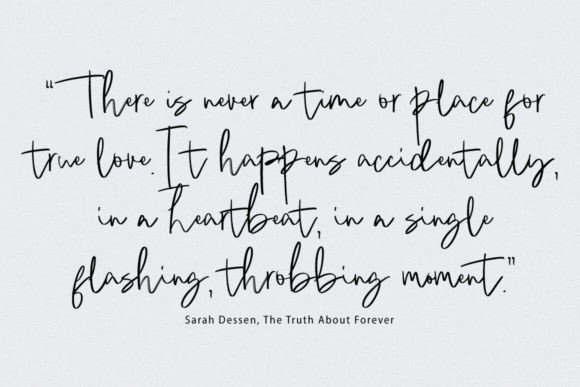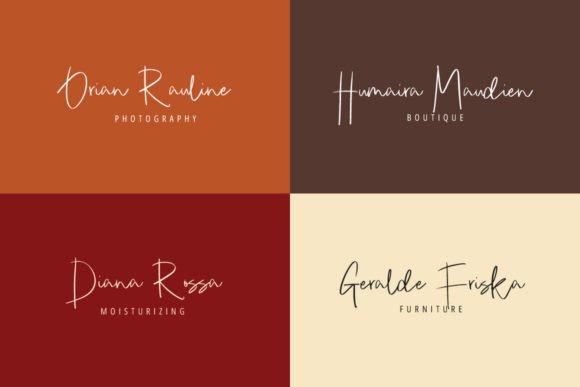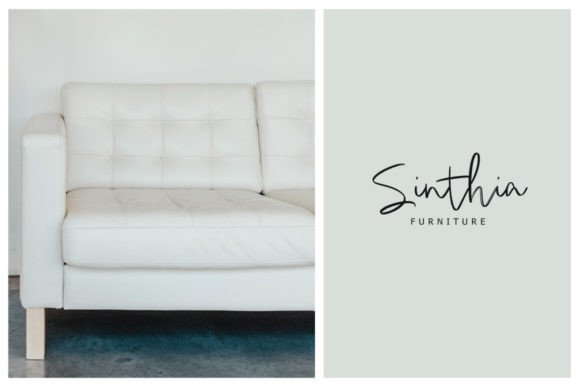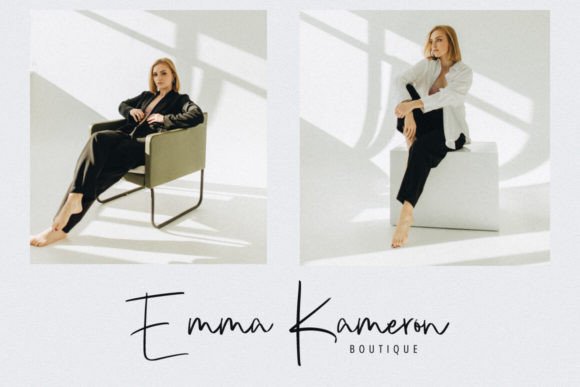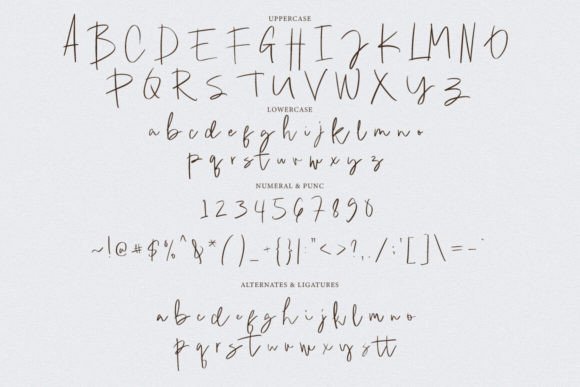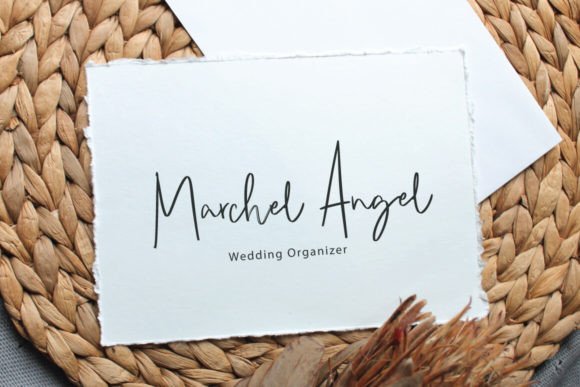
Introducing Brilliant White Font: Elevate Your Designs with Elegance
Are you a designer or crafter looking for a font that adds a touch of sophistication and whimsy to your creations? Look no further than Brilliant White Font, a stunning typeface that combines a handmade signature style with decorative characters and a dancing baseline. This beautiful font is perfect for a variety of projects, including invitations, greeting cards, branding materials, business cards, quotes, posters, and more.
The Unique Charm of Brilliant White Font
Brilliant White Font stands out from the crowd with its distinctive handmade signature style. Each letter is crafted with care, giving the font a personal and artistic feel that is sure to capture the attention of your audience. The decorative characters add an extra layer of elegance, making this font ideal for special occasions and high-end designs.
Key Features of Brilliant White Font
- Handmade Signature Style: Each letter is carefully crafted to give the font a unique, personal feel.
- Decorative Characters: Add a touch of whimsy and elegance to your designs with the font’s decorative characters.
- Dancing Baseline: The font’s dancing baseline adds a playful, dynamic feel to your text, making it perfect for designs that need a little extra flair.
Brilliant White Font is incredibly versatile, making it suitable for a wide range of projects. Here are just a few ideas to get you started:
- Invitations: Whether you’re planning a wedding, birthday party, or other special event, Brilliant White Font is the perfect choice for your invitations.
- Greeting Cards: Add a touch of elegance to your greeting cards with this beautiful font.
- Branding Materials: Use Brilliant White Font to create a cohesive brand identity that stands out from the crowd.
- Business Cards: Make a lasting impression with beautifully designed business cards featuring Brilliant White Font.
- Quotes and Posters: Add a touch of sophistication to your quotes and posters with this stunning font.
Why Choose Brilliant White Font?
With so many fonts to choose from, why should you choose Brilliant White Font? Here are just a few reasons:
- Unique and Eye-Catching: Brilliant White Font is sure to grab the attention of your audience with its unique, handmade signature style.
- Elegant and Sophisticated: This font adds a touch of elegance and sophistication to any design, making it perfect for high-end projects.
- Versatile: Brilliant White Font is suitable for a wide range of projects, from invitations and greeting cards to branding materials and posters.
Tips for Using Brilliant White Font
Here are a few tips for getting the most out of Brilliant White Font:
- Experiment with Different Sizes: Brilliant White Font looks great in a variety of sizes, so don’t be afraid to experiment to find the perfect size for your project.
- Pair with Other Fonts: Try pairing Brilliant White Font with other fonts to create a unique and eye-catching design.
- Use on a Variety of Backgrounds: This font looks great on a variety of backgrounds, from simple and solid to complex and patterned.
| Font Name | Brilliant White Font |
| Author | Tebaltipis.std |
Brilliant White Font is a stunning typeface that is sure to elevate your designs with its elegance and whimsy. With its handmade signature style, decorative characters, and dancing baseline, this font is perfect for a variety of projects, from invitations and greeting cards to branding materials and posters. Whether you’re a designer or crafter, Brilliant White Font is a great choice for anyone looking to add a touch of sophistication and uniqueness to their creations.